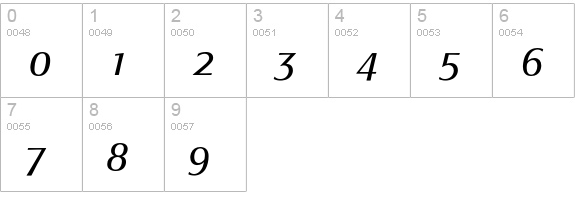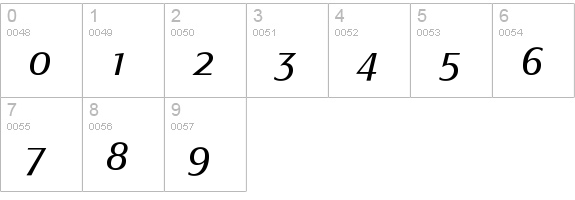
Signata Expert Italic is a distinctive, italic variant in the Signata typeface family \xE2\x80\x94 well suited to design and typography projects.
Introducing Signata Expert Italic font, a stunningly elegant typeface that exudes sophistication and professionalism. With its delicate and graceful letterforms, this font is perfect for adding a touch of refinement to any design project. Signata Expert Italic font effortlessly blends classic charm with a modern twist, making it an ideal choice for luxury branding, editorial layouts, and elegant invitations. Its slanted and italicized design adds a touch of dynamism and energy, ensuring that your text stands out and captures attention. This font boasts a wide range of meticulously crafted characters, including beautifully curved uppercase letters, stylish lowercase letters, and a variety of punctuation marks and symbols. The attention to detail in every stroke and curve is evident, giving Signata Expert Italic font a distinct and polished look. One of the best features of Signata Expert Italic font is that it is freely available to download at FontsMarket.com. This means that you can easily access and use this exquisite font in your projects without any hassle. Whether you're a professional designer or an aspiring creative, Signata Expert Italic font offers you the opportunity to elevate your work with its timeless beauty. So, why settle for ordinary when you can have extraordinary? Download Signata Expert Italic font today and let its grace and elegance transform your designs into works of art. With its seamless integration into your creative toolbox, this font is sure to become a go-to choice for all your design needs.